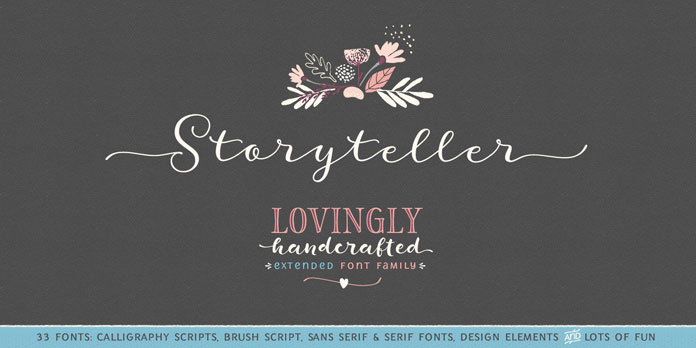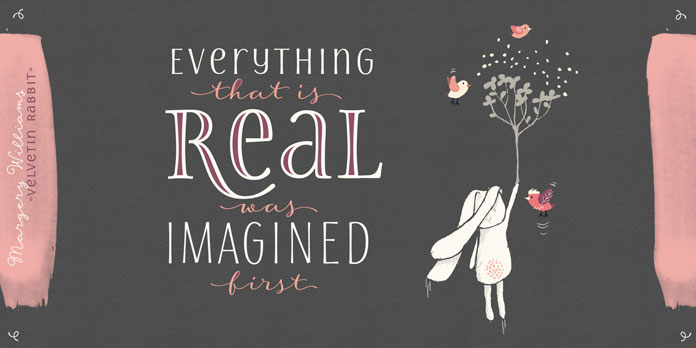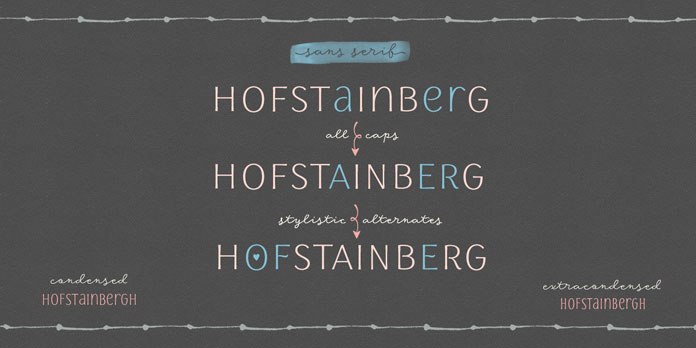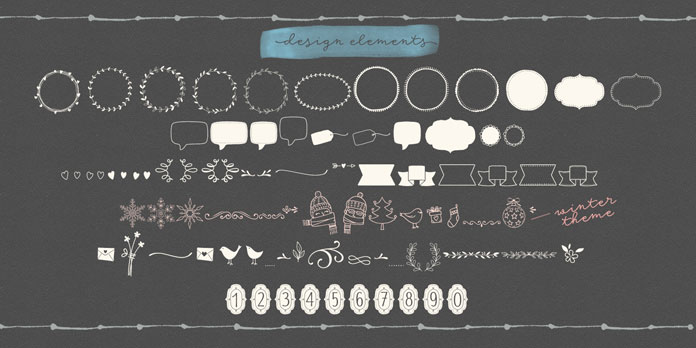
Storyteller Font Family from My Creative Land
Storyteller, a lovingly handwritten font family with versatile styles from My Creative Land.
Freshly released by the friendly people of My Creative Land, here comes Storyteller, an extended font family with numerous handwritten styles and extras. With Storyteller, type designer Elena Genova has created a vivid collection of several handcrafted fonts including a calligraphy script, brush script, sans serif and serif fonts, numerous design elements and lots of fun. All the different styles can be used in a wide range of design projects such as brand identities, festive invitation cards, funny quotes, etc. Read more below.
Storyteller, a lovingly handwritten font family from My Creative Land.
Storyteller, a lovingly handwritten font family with diverse styles from My Creative Land. The full collection consists of 33 fonts including a calligraphy script, brush script, sans serif and serif fonts, numerous design elements and lots of fun.
Storyteller’s script fonts come with initial and end swashes to add a playful touch to your lettering. In addition, they are equipped with ligatures and contextual alternates. Both serif and sans serifs are all capitals fonts. They come with plenty of catchwords and ligatures. The range of design elements includes banners, symbols, illustrations, and much more. Follow the link below to get additional information on all typographic features.
Everything that is real was imagined first.
Everything that is real was imagined first, also this fairytale type collection.
Swashes and alternates.
The Storyteller type collection is packed with plenty of swashes and alternates.
All caps and stylistic alternates.
A brush script with lots of typographic extras.
Design elements.
The handcrafted Storyteller font family also includes lots of design elements.